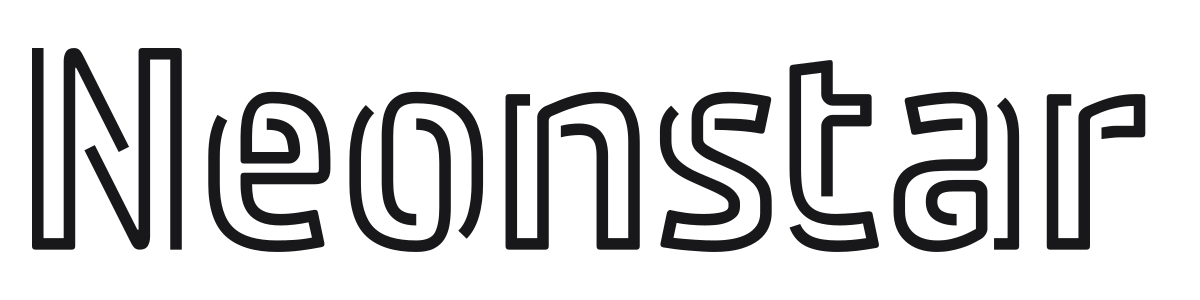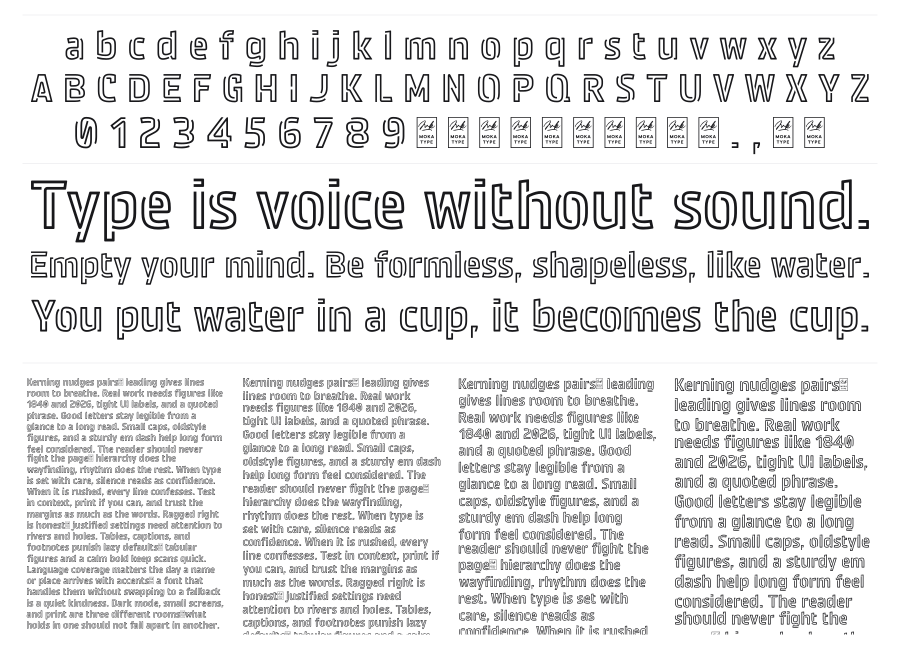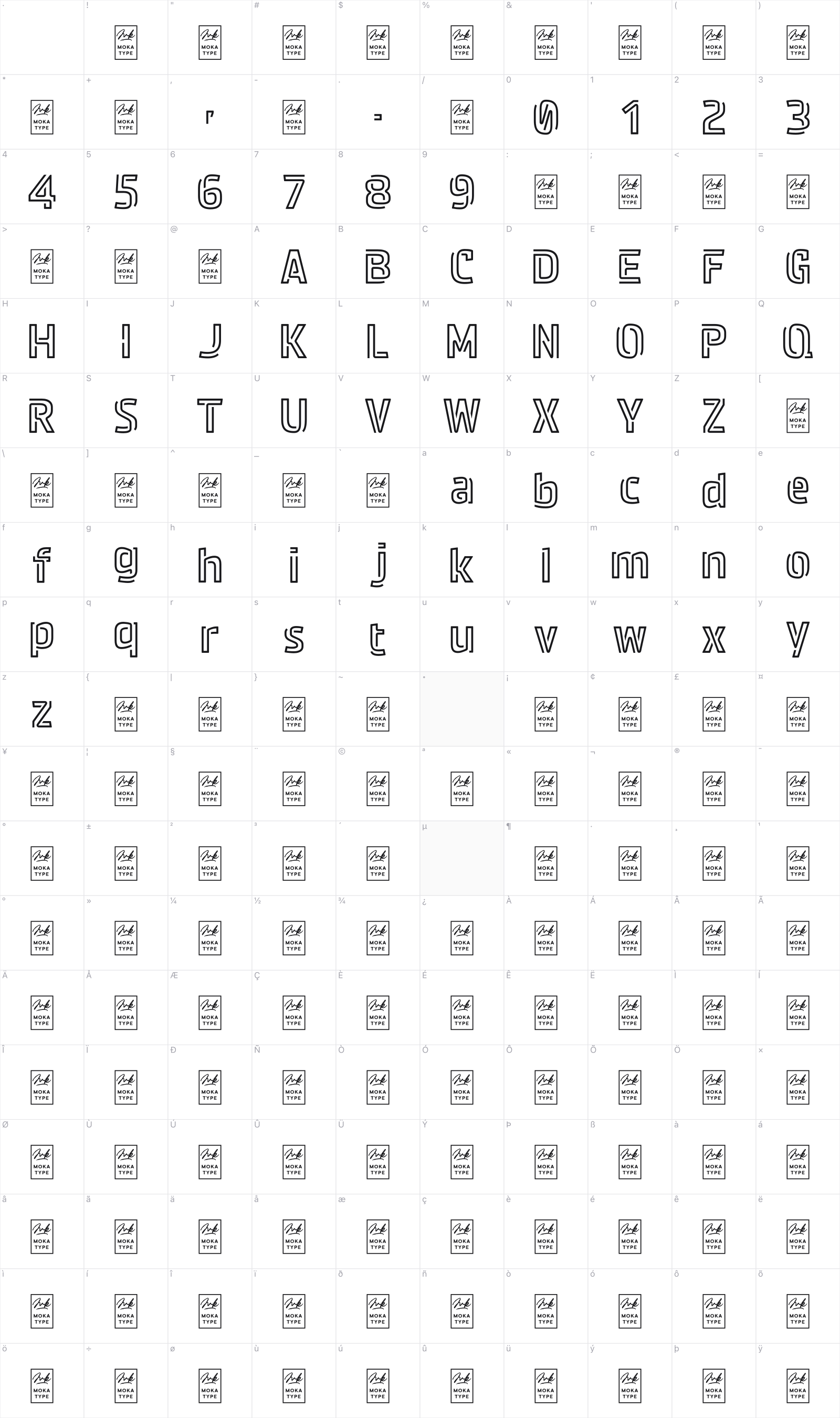
Neonstar
Neonstar is a rounded outline display font with an inflated, double-stroke construction that mimics the glow of neon tube signage. Wide proportions, large x-height, and softly rounded corners give it a retro-futurist warmth that sits somewhere between 1970s arcade lettering and contemporary street aesthetics. It works best at large sizes where the outline structure reads cleanly as a design statement.